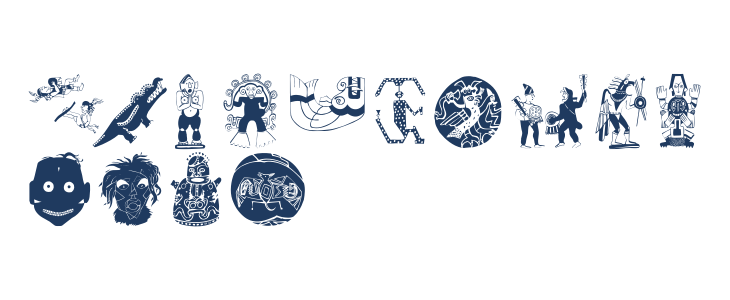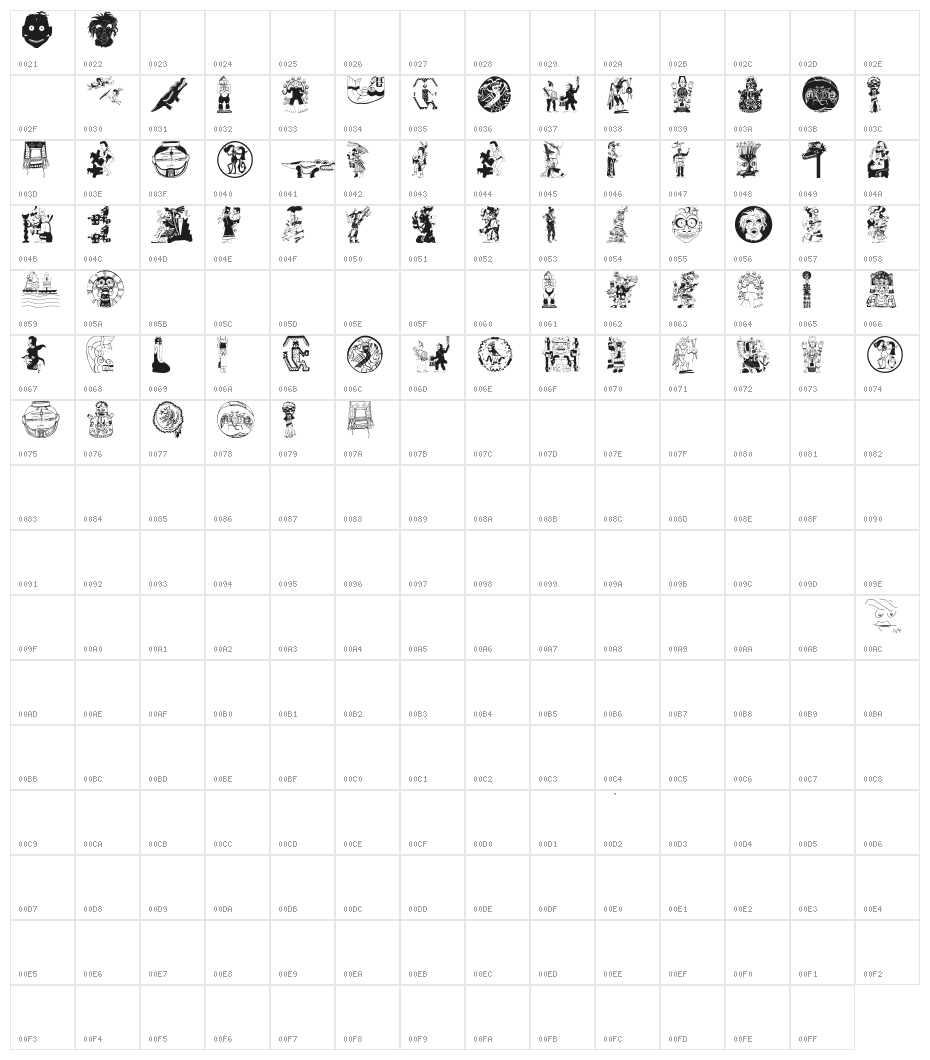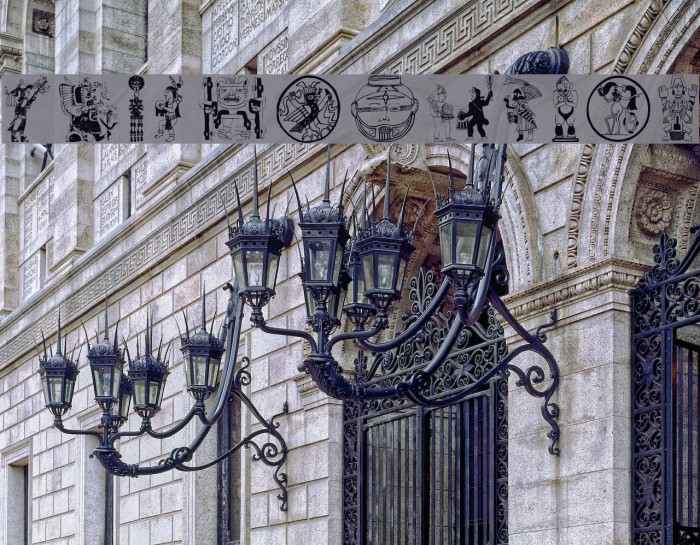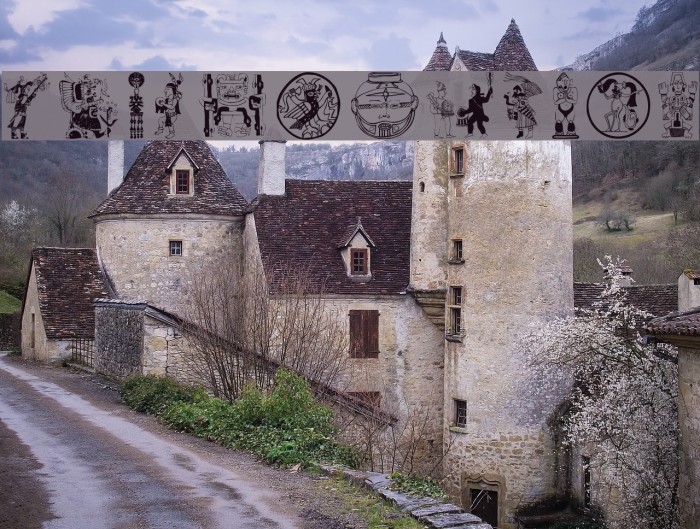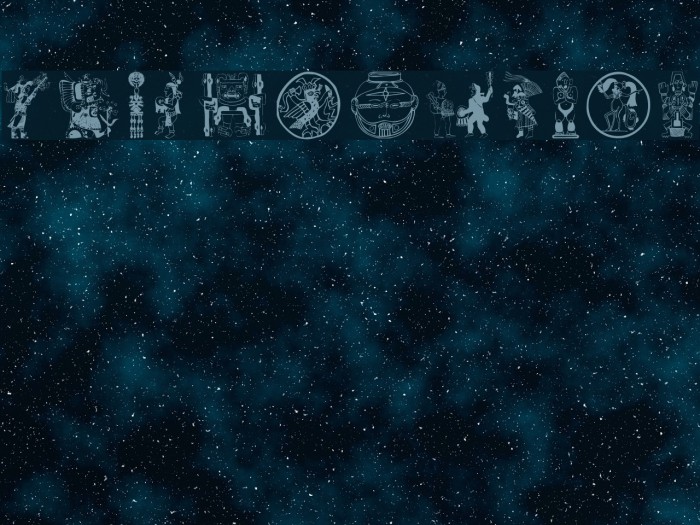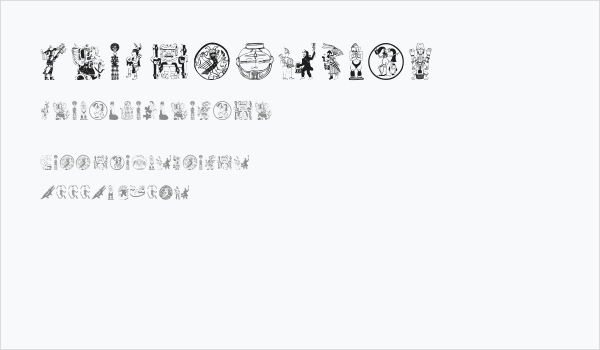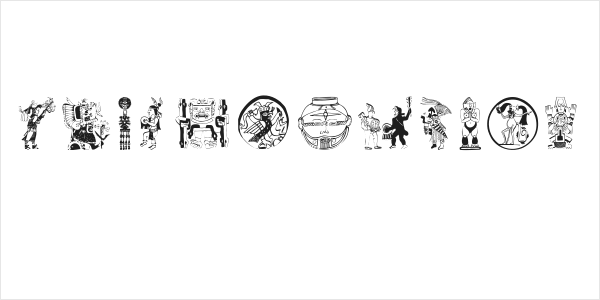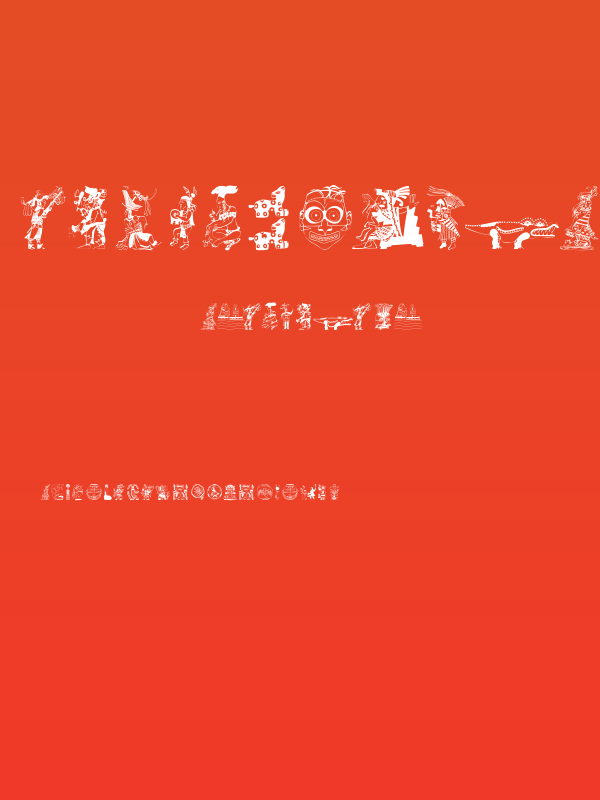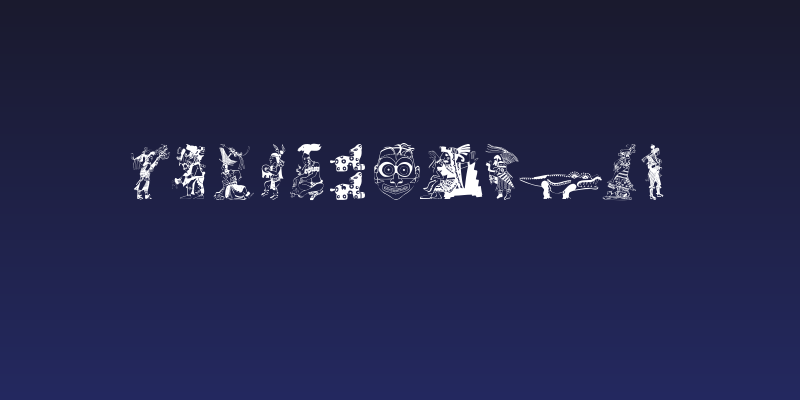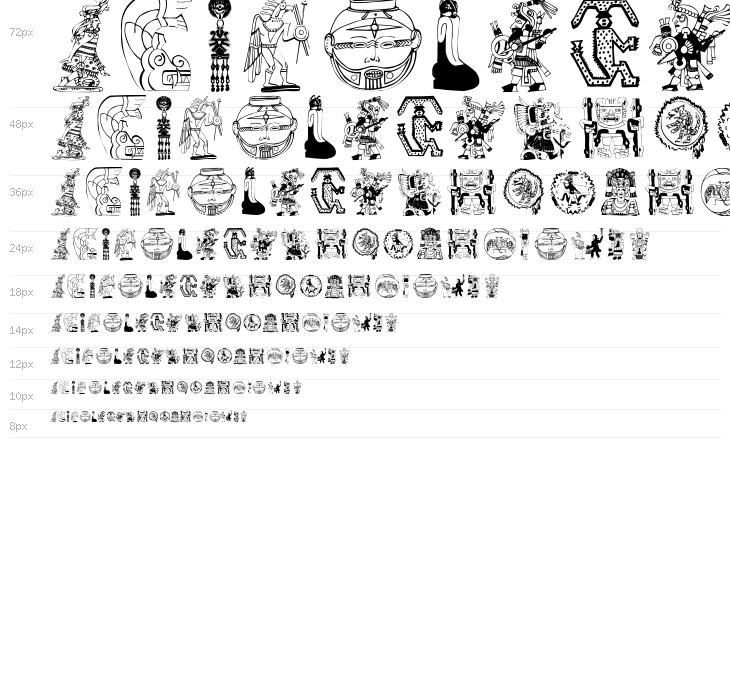
PreColumBats Font
PreColumBats Description
This font is a collection of intricate and highly detailed glyphs inspired by ancient Mesoamerican art and iconography. Each character is a unique depiction of figures, symbols, and motifs that reflect the rich cultural heritage of pre-Columbian civilizations. The designs are bold and visually striking, with a strong emphasis on line work and contrast. The characters are more illustrative than textual, making them ideal for decorative purposes. The font captures the essence of ancient artistry, offering a visually captivating experience that is both historical and artistic.
| Use Case | Logos, Posters, Art projects |
| Proposed Projects | Ideal for cultural exhibitions, historical documentaries, themed event posters, and artistic projects that require a touch of ancient Mesoamerican aesthetics. |